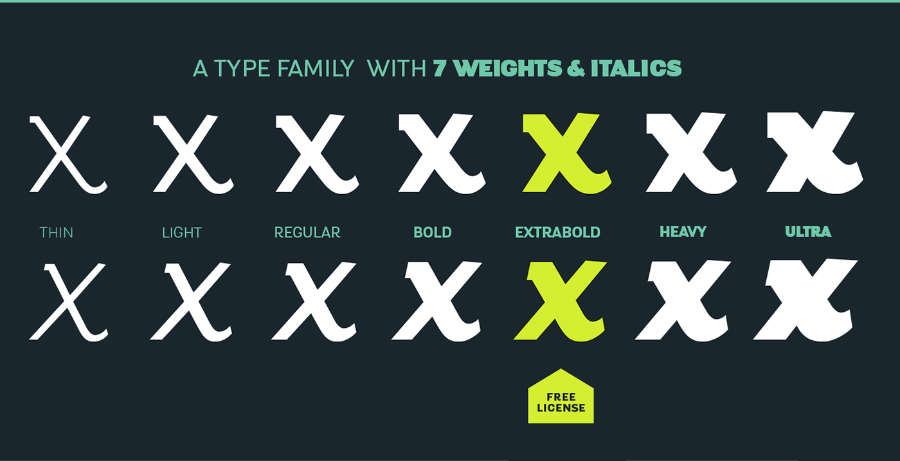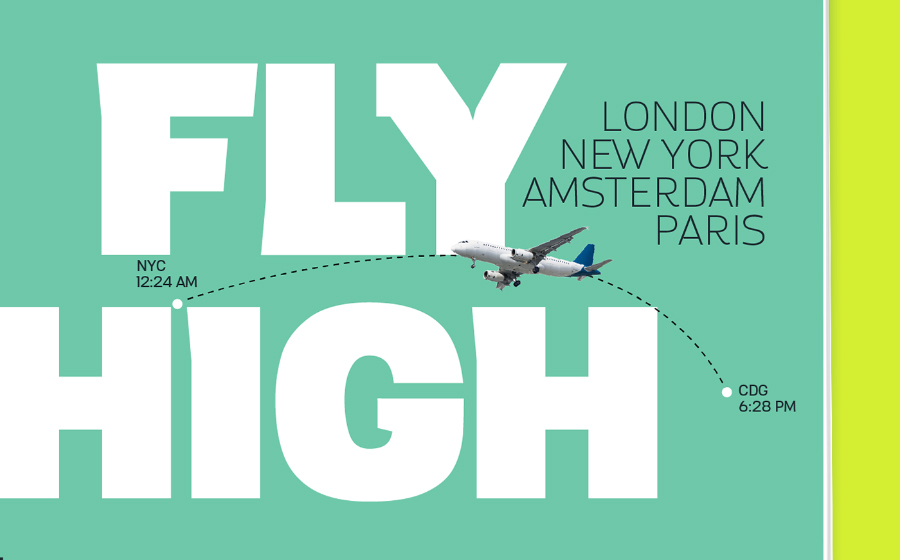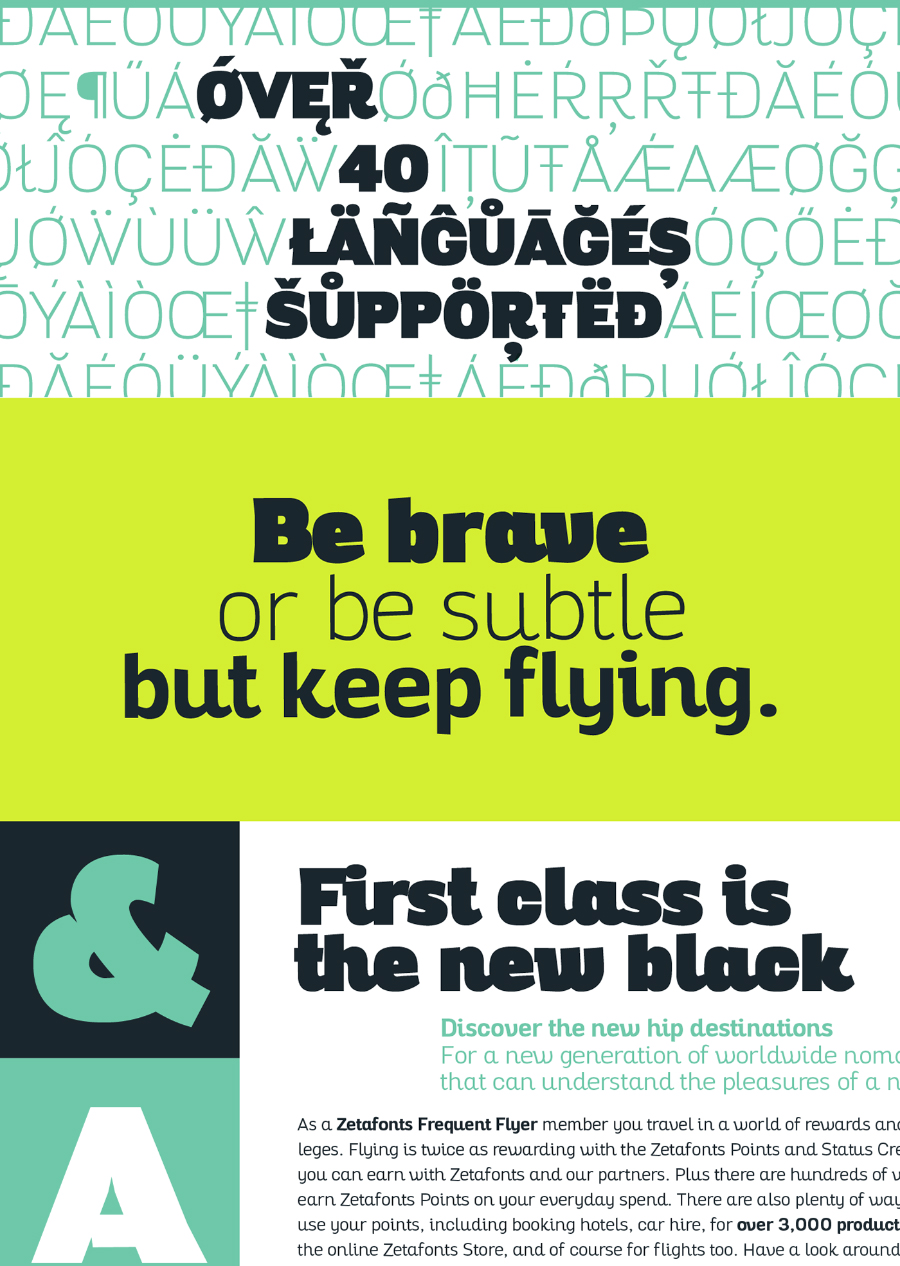
Altair Font Family
Altair Font Family is a family of serif typefaces designed for editorial use. A large x-height and open letterforms enhance readability across a wide range of text sizes. Ascenders that rise slightly above the capitals and numerals help preserve a traditional word image, while the typeface’s sharply delineated, streamlined forms give text a distinctive, dramatic presence. These details introduce visual character without unnecessary ornamentation. Dots and punctuation are round, while many lowercase terminals end in sharp, wedge-shaped forms—features that are intentionally pronounced.